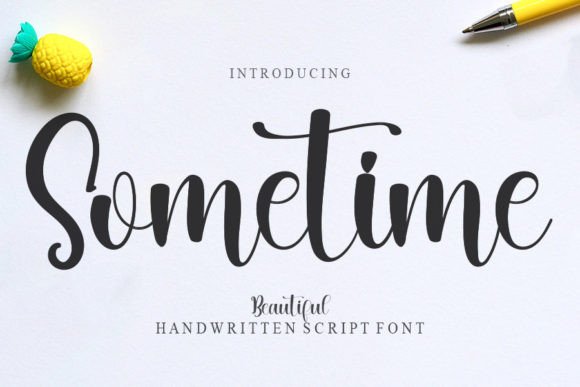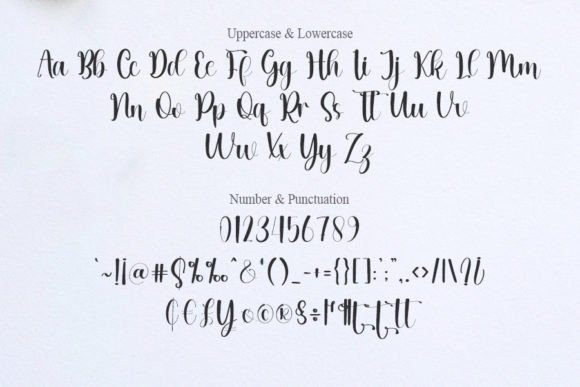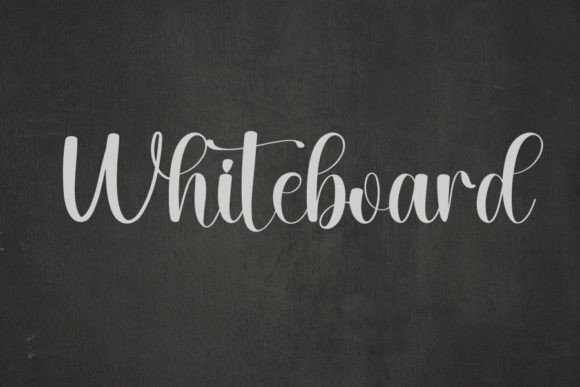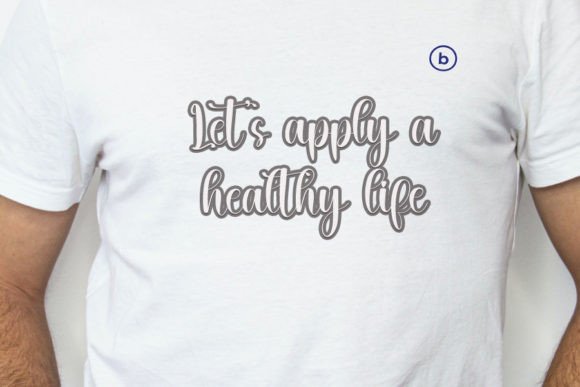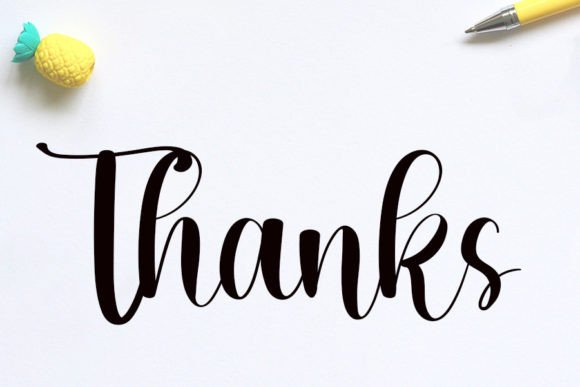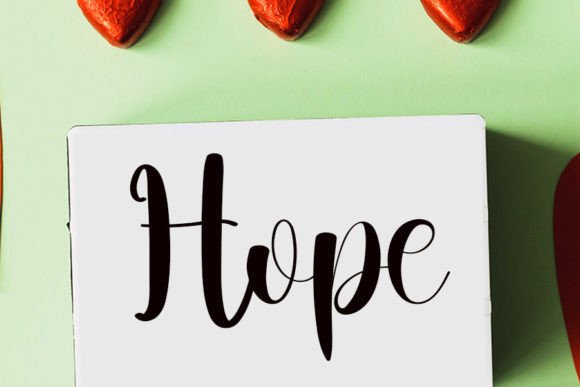
Sometime Font
About Sometime Font
Sometime font is a casual and relaxed script typeface designed to bring a charming and versatile flair to any design. This font’s smooth and natural strokes make it perfect for a wide range of creative projects. Whether you are crafting elegant wedding invitations, designing beautiful stationery, or creating striking social media posts, Sometime font offers a friendly and inviting look that enhances every design.
Ideal for Wedding Invitations and Stationery
Sometime font shines in wedding invitation designs and stationery. Its flowing and easygoing style adds a personal touch that conveys warmth and elegance. The font’s relaxed vibe perfectly captures the spirit of joyful celebrations, making your printed pieces stand out.
Boost Your Social Media Presence
Using Sometimefont in social media graphics gives your content a fresh and approachable feel. Its readable and stylish curves help your messages pop on platforms like Instagram, Facebook, and Twitter. This font is an excellent tool for building a unique and consistent brand identity online.
Versatile for Many Design Needs
Beyond weddings and social media, Sometimefont suits branding, product packaging, quotes, posters, and more. Its casual script style adds authenticity and sophistication, making your work look handcrafted and polished.
Why Choose Sometime Font?
Sometimefont balances casual elegance with versatility. It’s the perfect choice for creatives who want a font that feels warm, stylish, and adaptable across different projects. Add Sometimefont to your toolkit and elevate your designs with effortless charm.